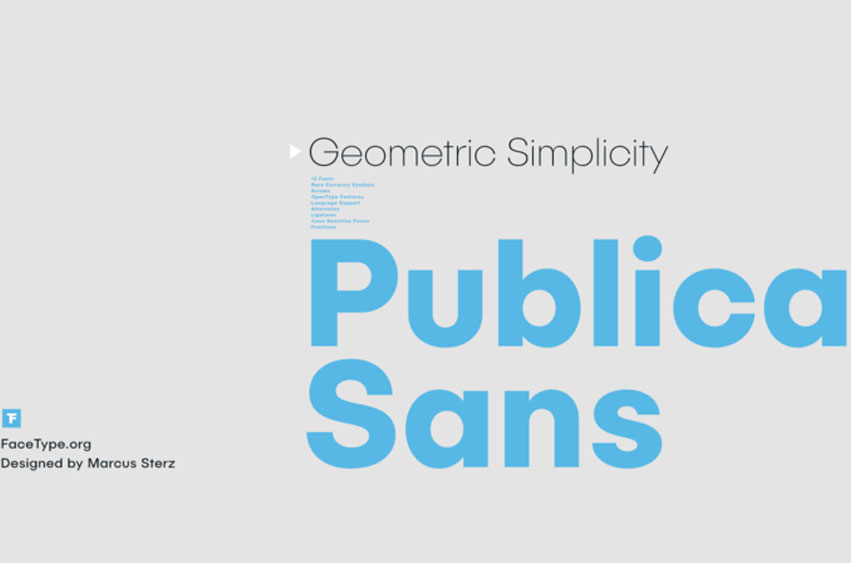
Publica Sans Font
Publica Sans Font is a multifaceted geometric typeface with numerous OpenType features to help in creating stunning typography. These characteristics are the arrows, alternates and rare currency symbol forms which change according to the case as well as the different figures types and even the discretionary Ligatures.
Publica Sands is accompanied by its two siblings – Publica Play and Publica Slab.